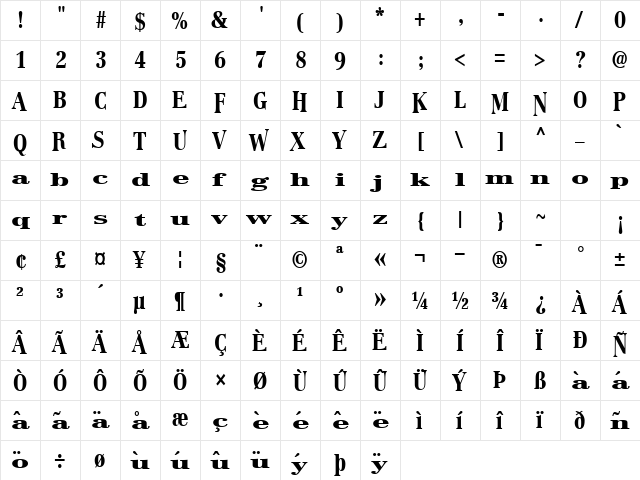
BostonLifeToday1 Regular
Design Context for BostonLifeToday1 Typeface
BostonLifeToday1 offers clean, dependable letterforms without strong stylistic allegiance, making it a practical choice for designers who need flexibility.
Pro Tip: Use BostonLifeToday1 in both headline and body roles to test its range before committing to a single application.